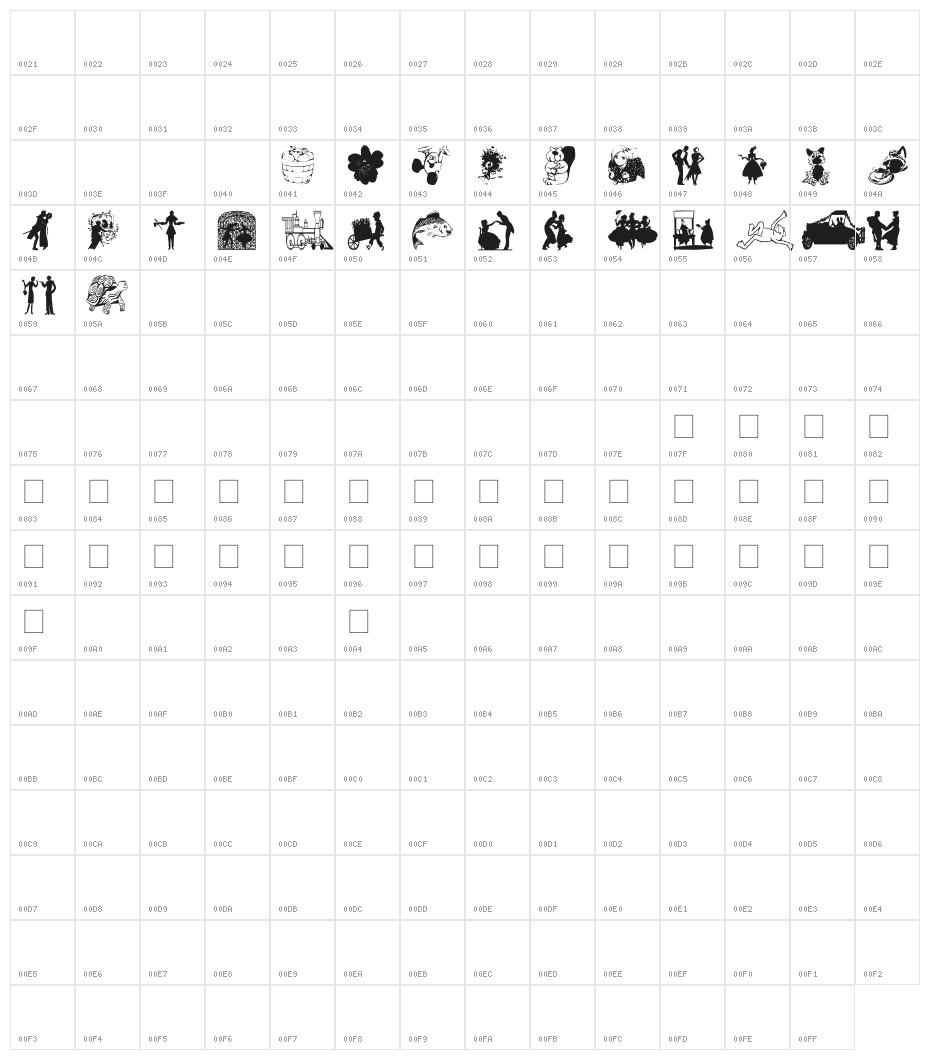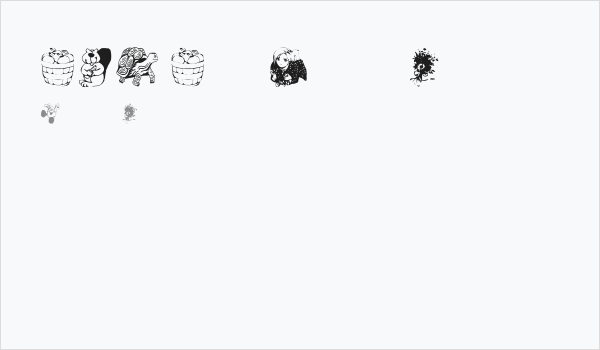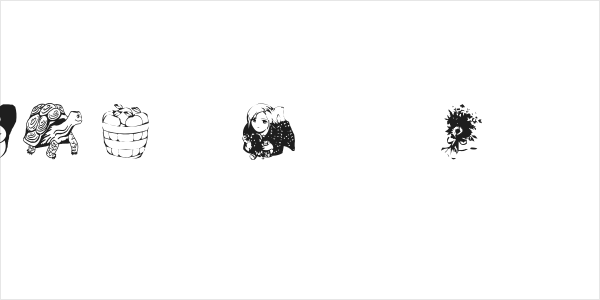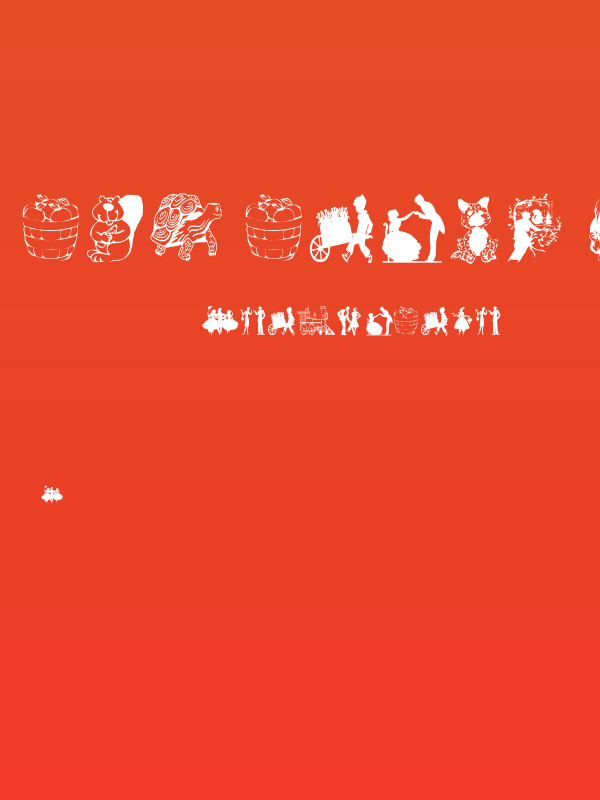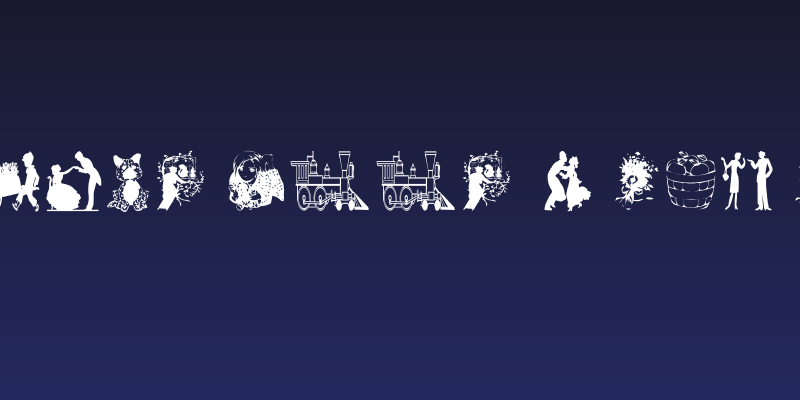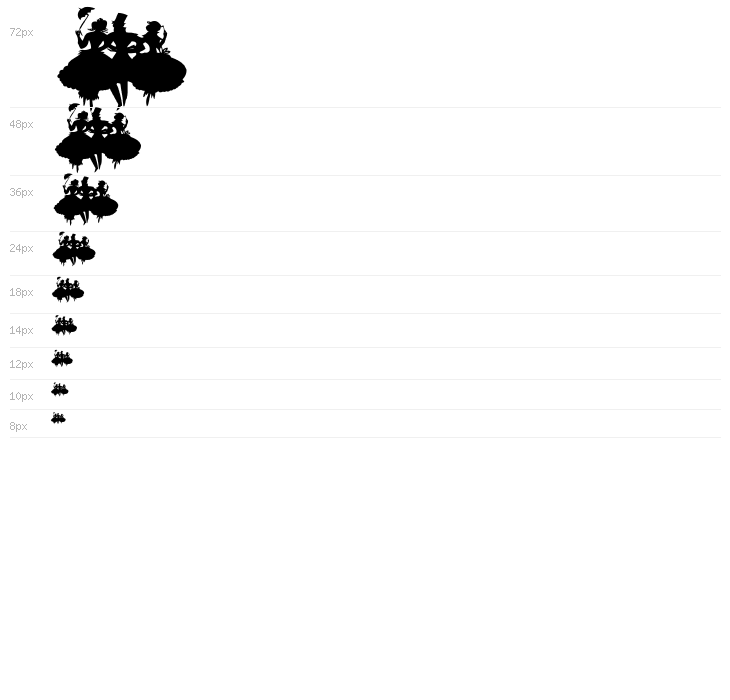
AEZ April Fool's Day dings Font
AEZ April Fool's Day dings Description
This is a playful and whimsical dingbat font featuring a variety of quirky and humorous illustrations. Each character is represented by a unique and detailed image, ranging from cartoonish figures to amusing scenes. The style is lighthearted and fun, making it perfect for adding a touch of humor to any project. The illustrations are bold and clear, ensuring they stand out when used in designs. This font is ideal for creative projects that require a sense of fun and playfulness.
| Use Case | Decorative elements, Illustrations |
| Proposed Projects | Ideal for greeting cards, party invitations, children's books, and playful branding materials. |